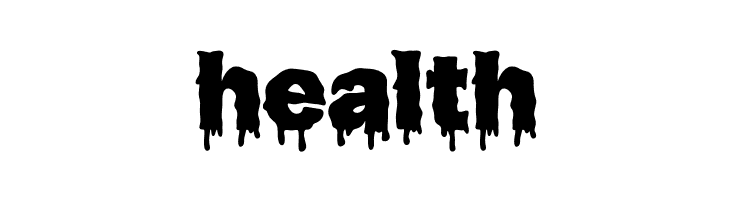
A bold, dripping display font ideal for horror or Halloween themes.
Distressed, bold display font with jagged, horror-inspired forms.
A bold, jagged display font with a spooky, dramatic style.
Dripping, horror-themed decorative font with bold, tall letters.
Bold, distressed display font with a grungy, horror-inspired style.
Dripping, horror-inspired decorative display font.
A bold, dripping, horror-themed decorative font.
A bold, dripping horror-themed display font with a melting effect.
Bold, dripping horror-themed display font.
A bold, dripping display font with a horror aesthetic.